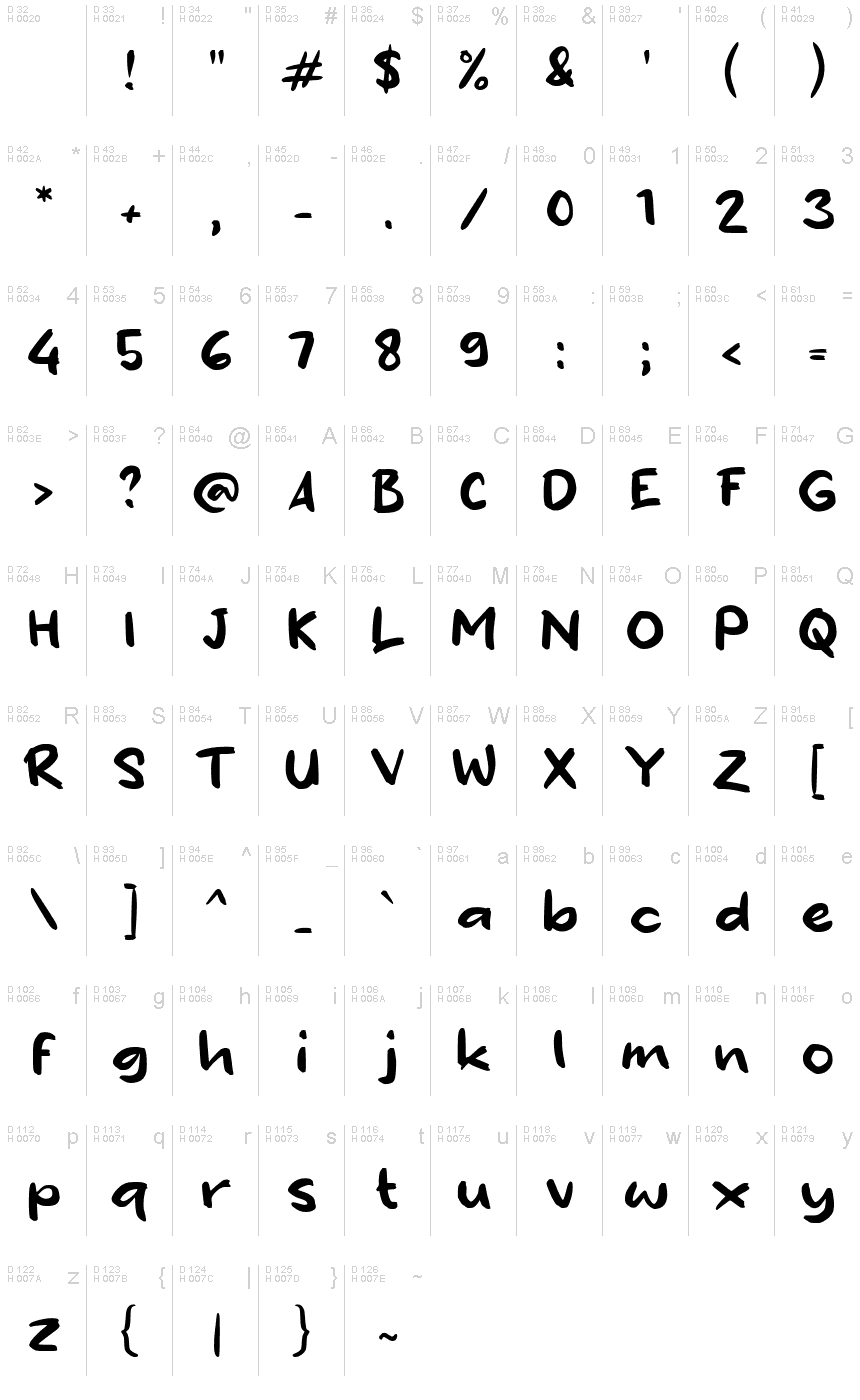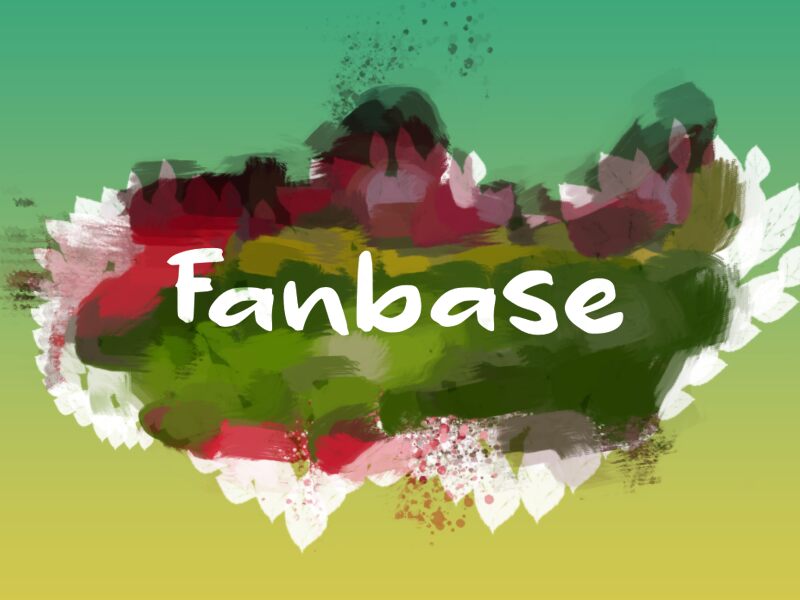
Fanbase
Fanbase, a bold and vibrant brush font designed by wep, is perfect for bringing an energetic and expressive touch to your design projects.
With its dynamic strokes and playful curves, this expanded font is ideal for creating eye-catching headlines, posters, and social media graphics that demand attention. Its bold weight ensures legibility even at smaller sizes, making it suitable for album covers or branding materials. Whether you're designing for music festivals or streetwear brands, Fanbase will add a unique and stylish flair to your creations.
Let your imagination run wild with this versatile and captivating typeface!